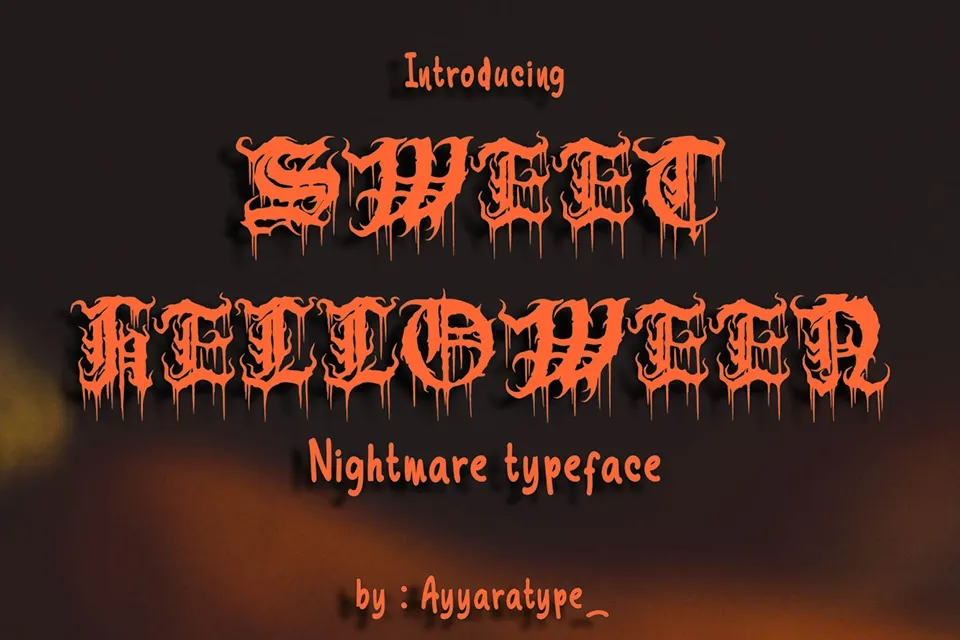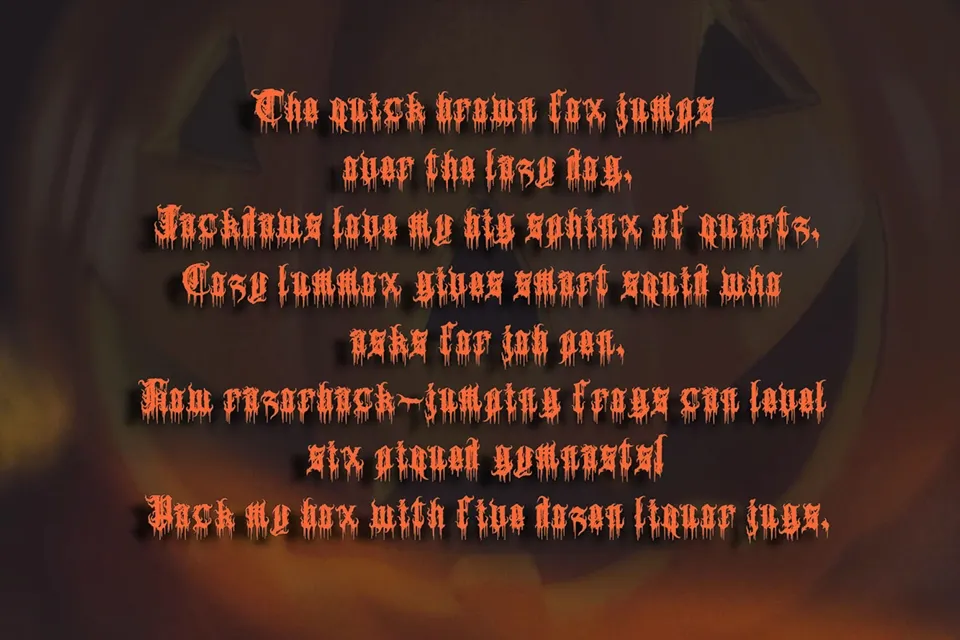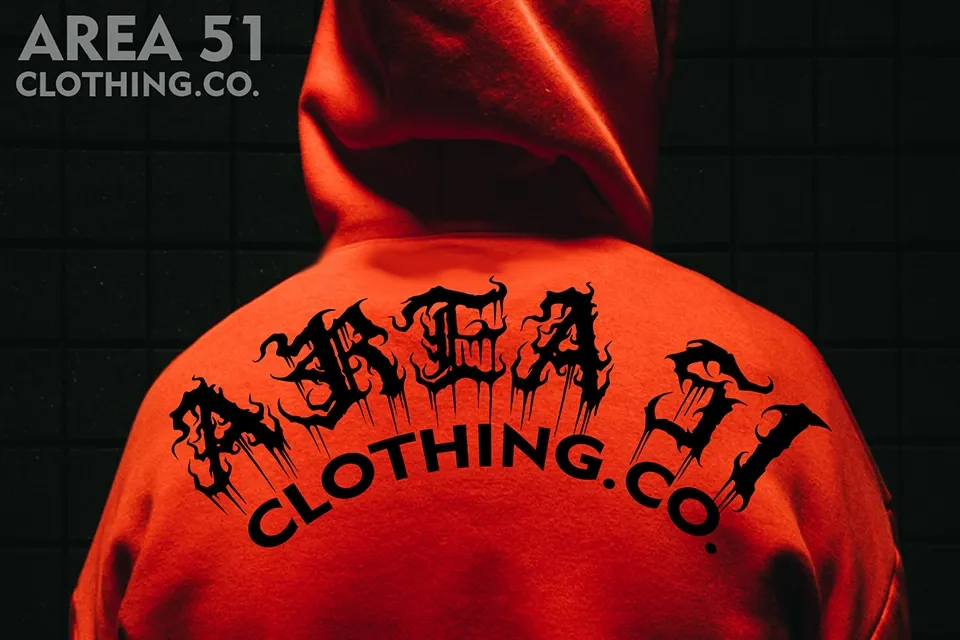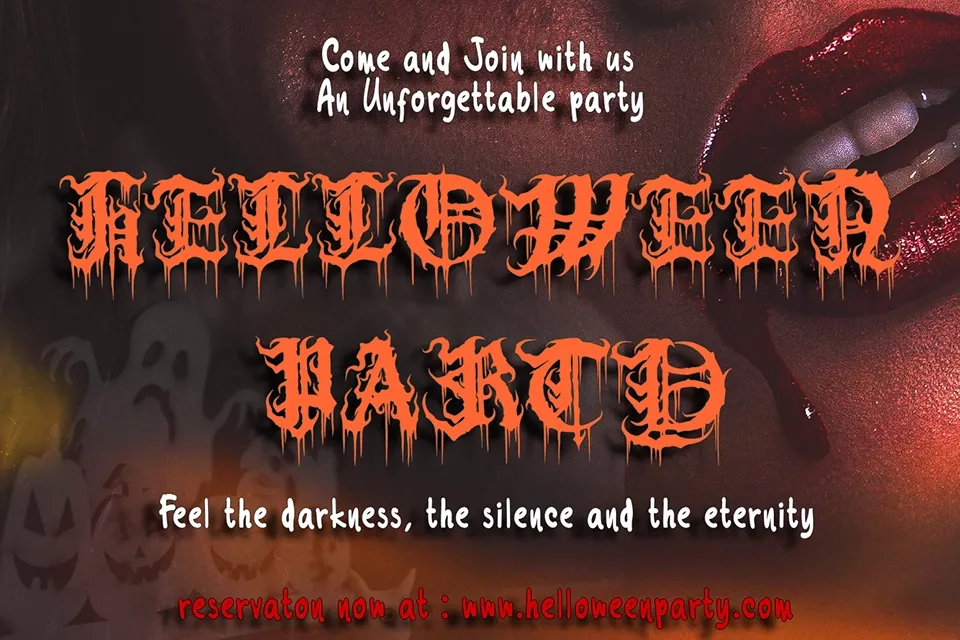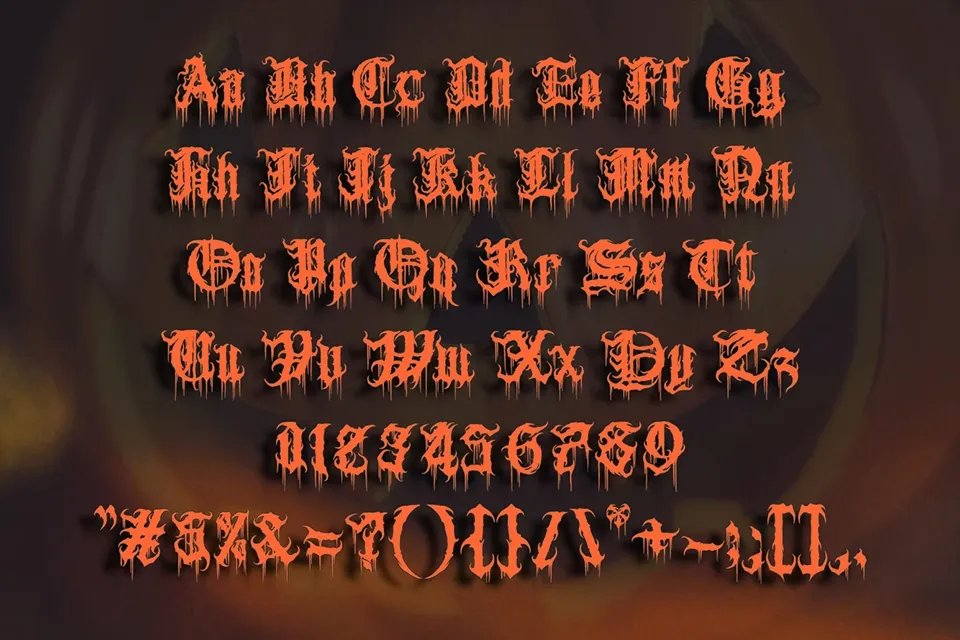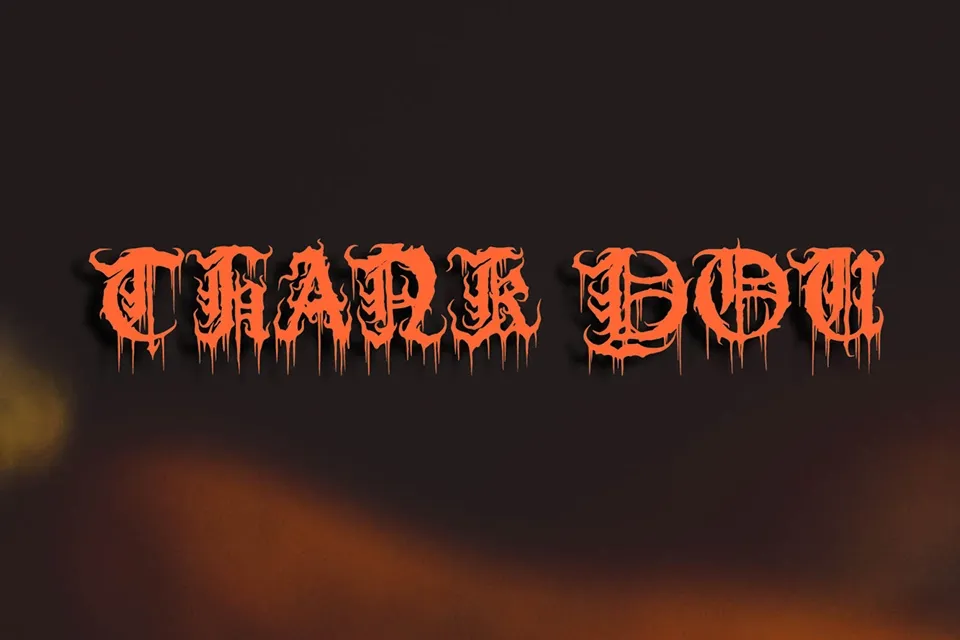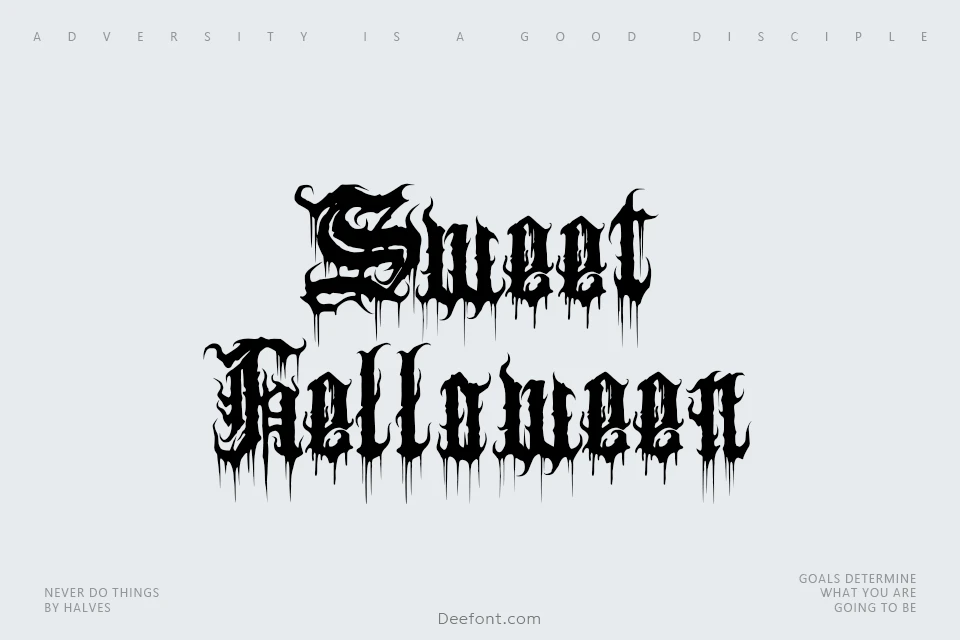
Sweet Helloween Font
Sweet Helloween Font, designed by Ayyaratype, is presented as a “Nightmare typeface” perfectly suited for Halloween themes. This font features bold, highly decorative letterforms characterized by a distinct dripping and jagged style, evoking a sense of horror or unease. Its appearance draws from gothic or blackletter influences but transforms them with a creepy, melting effect. Ideal for creating a spooky atmosphere, Sweet Helloween works well for eye-catching headlines, event posters, scary invitations, and any design project needing a strong, terrifying visual impact.